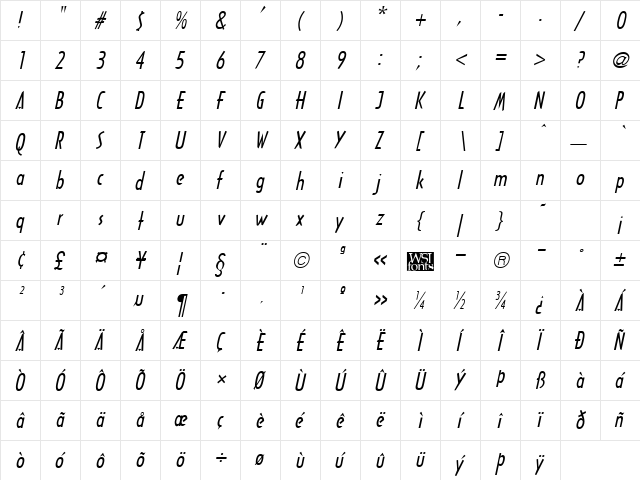
Arcane Italic
Design Context for Arcane Typeface
Arcane takes a measured approach to typography — its balanced proportions and neutral character make it a reliable workhorse for both digital and print work. Its italic angle brings a sense of urgency and motion to the letterforms.
Pro Tip: Use Arcane for emphasis, pull quotes, and subheadings where its slanted energy can add rhythm to the layout.